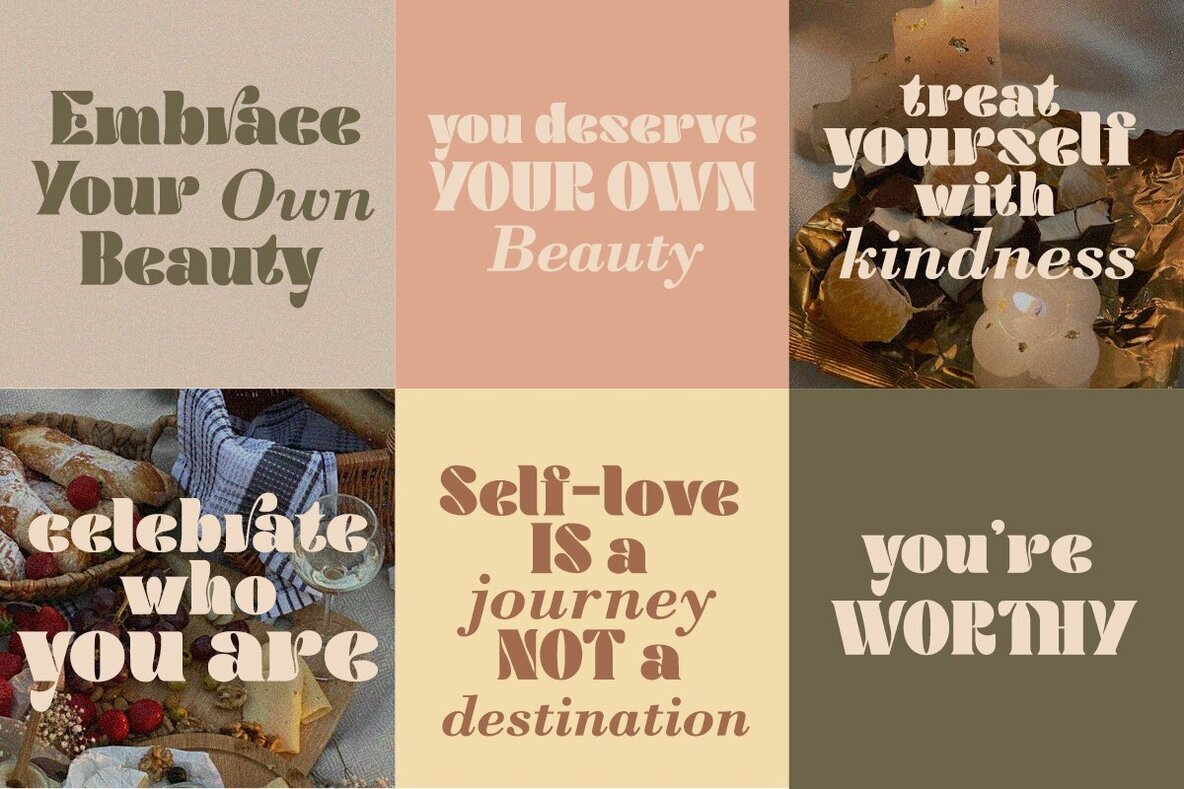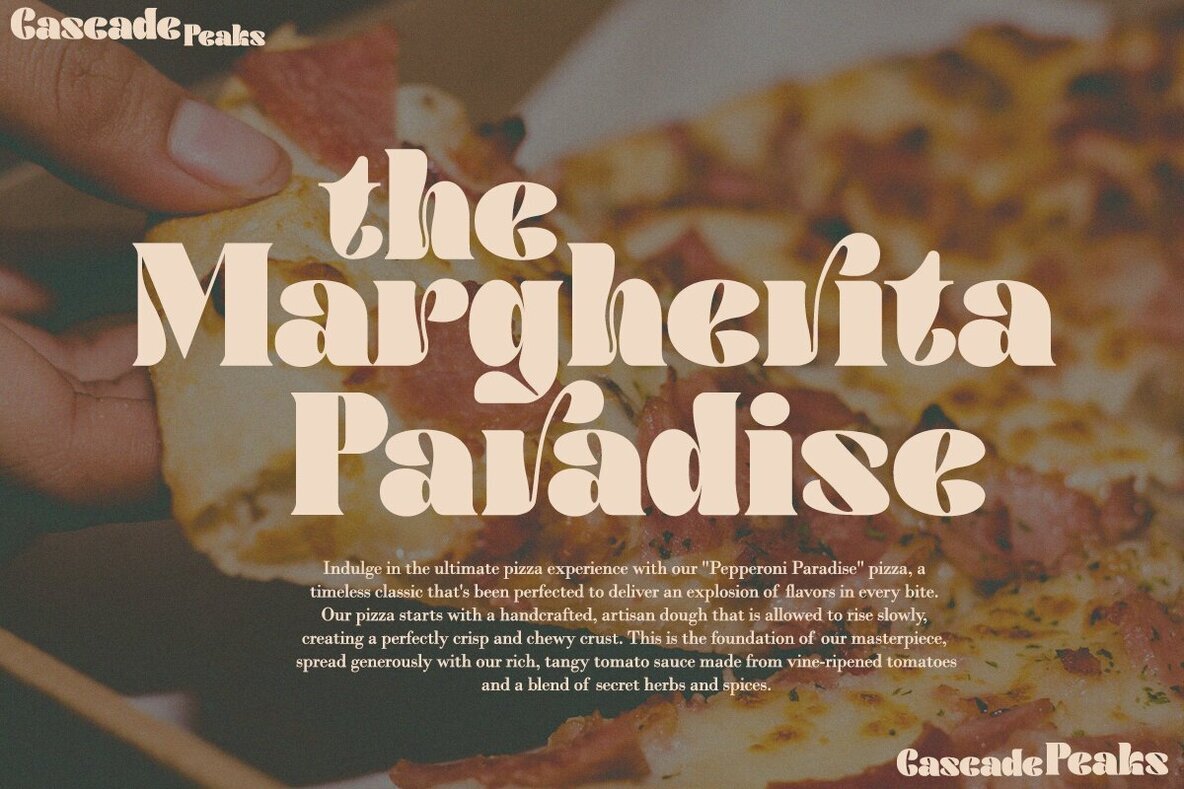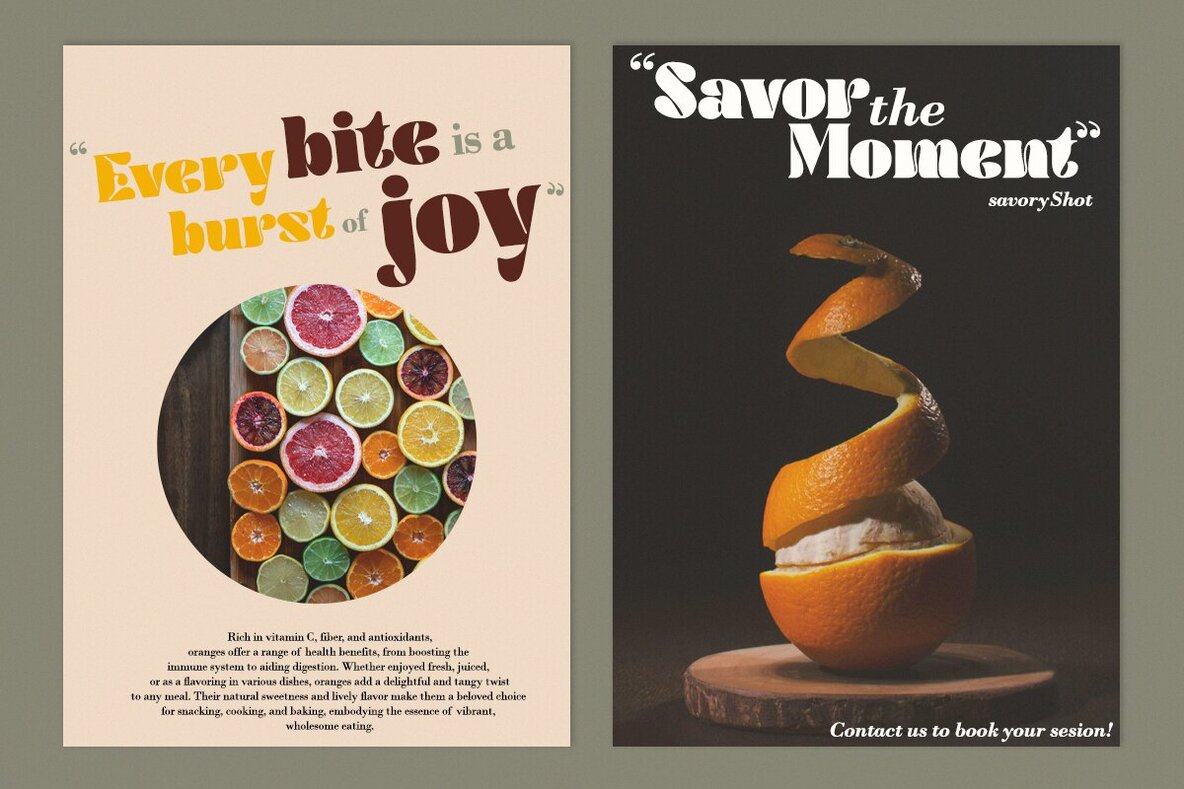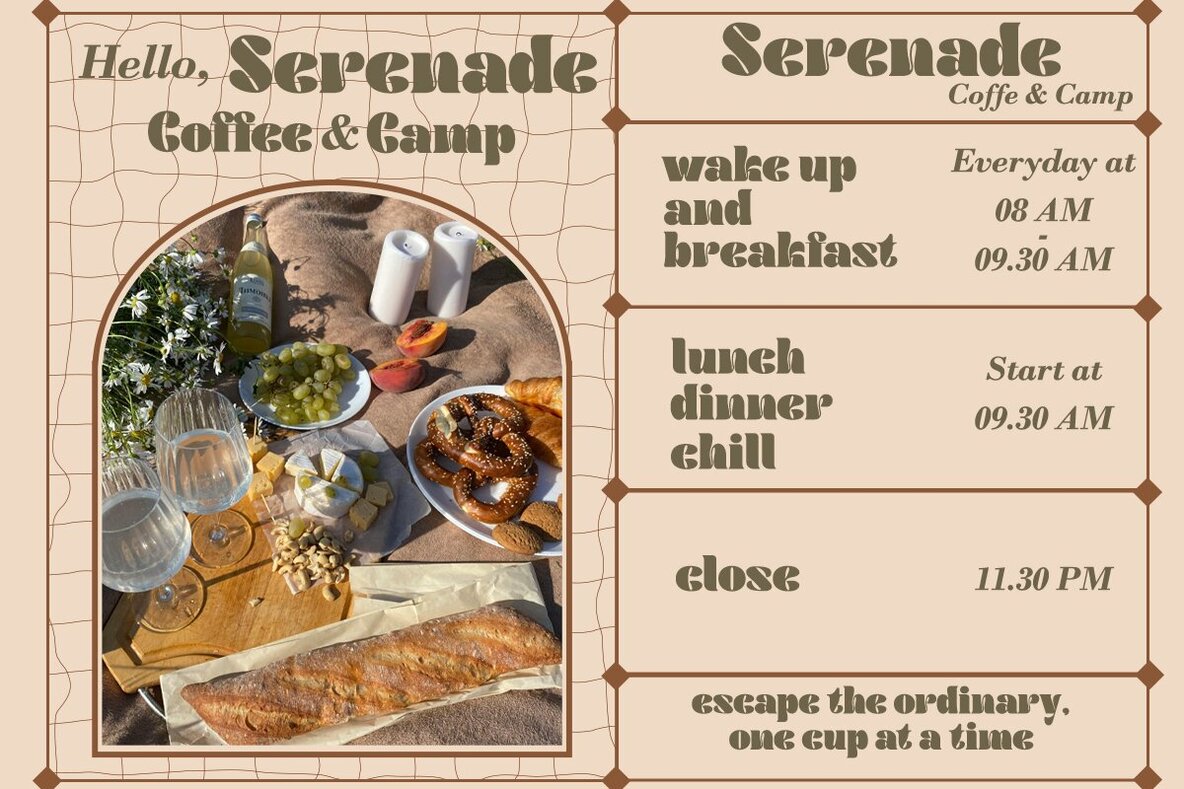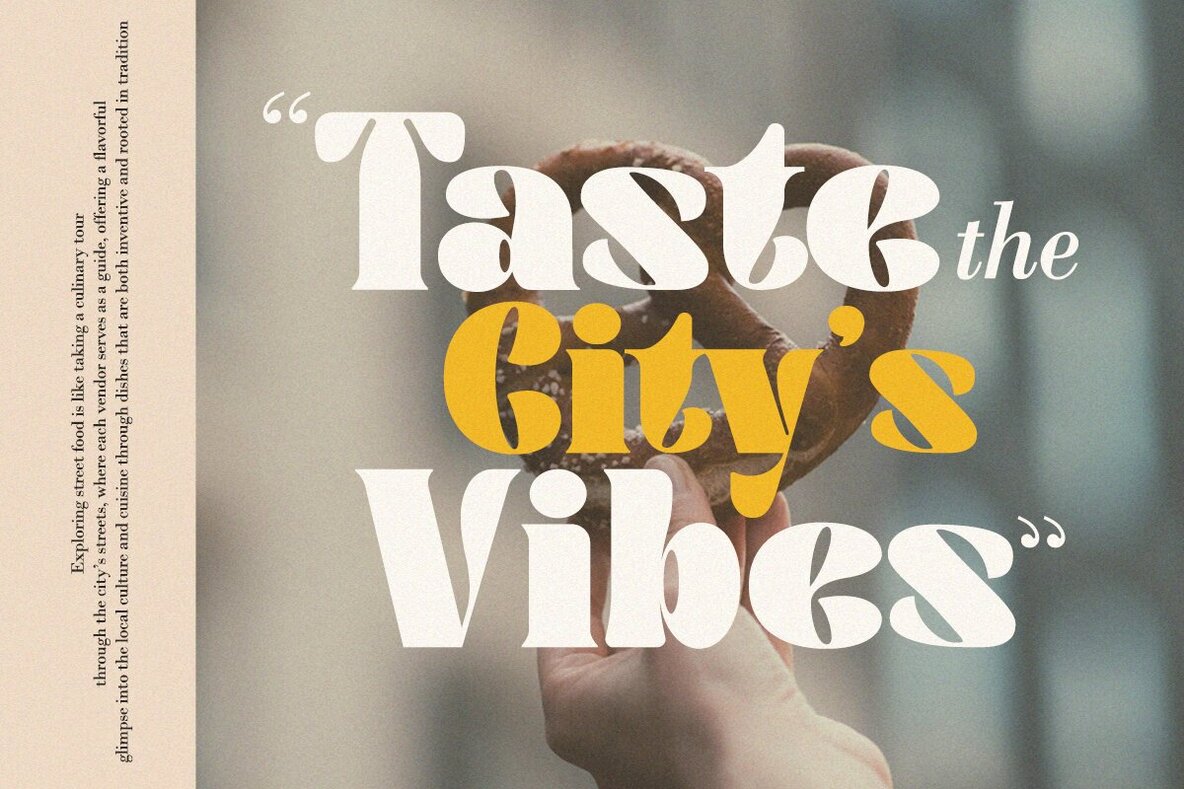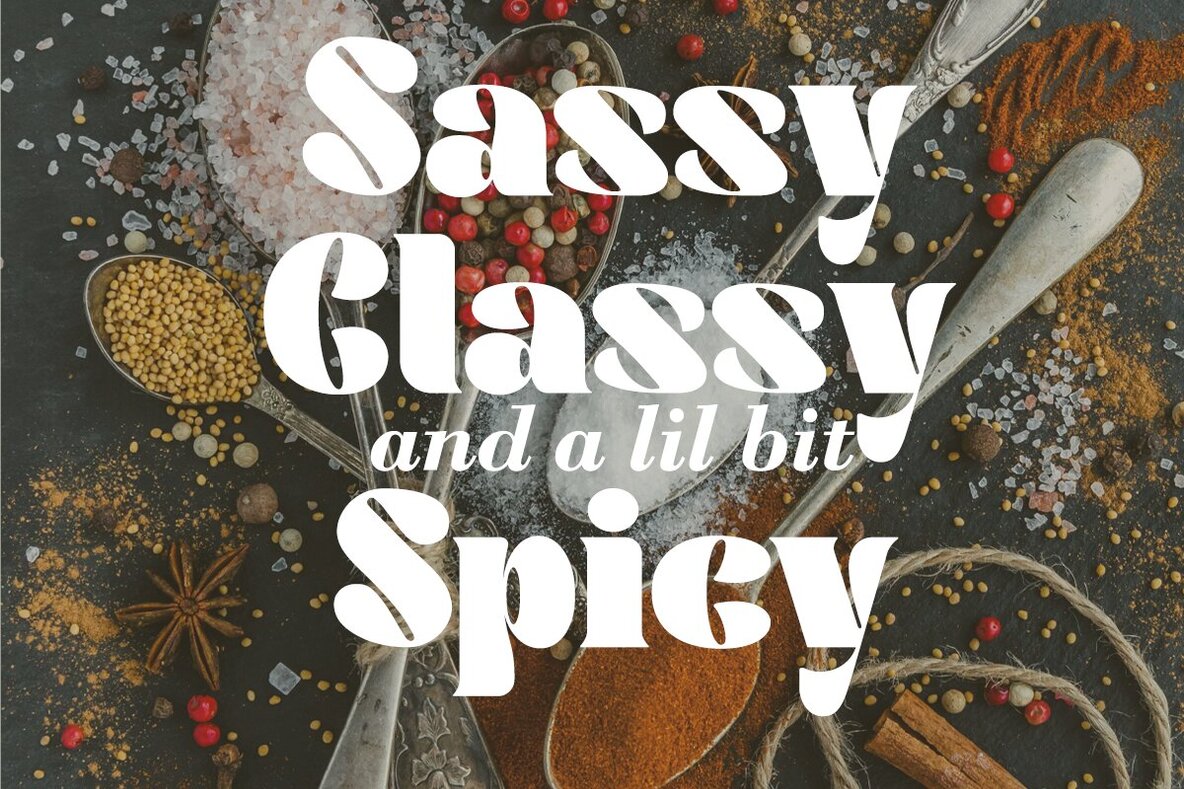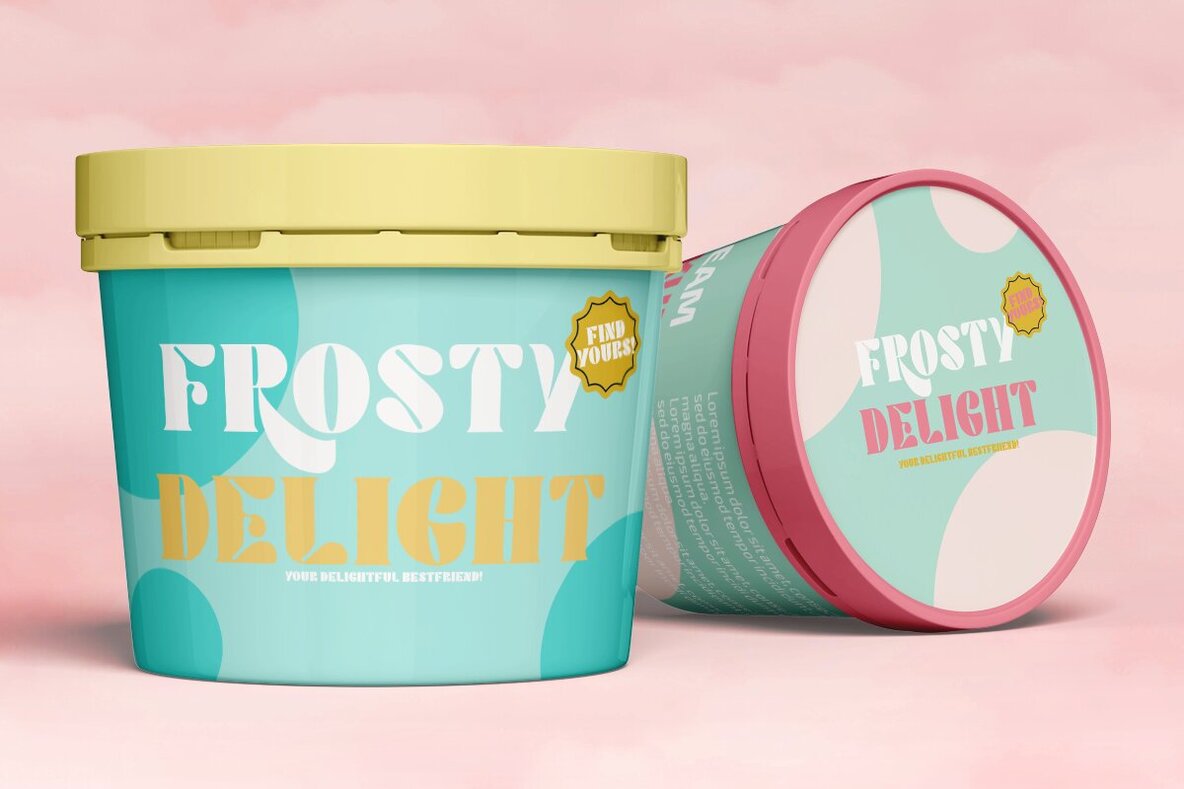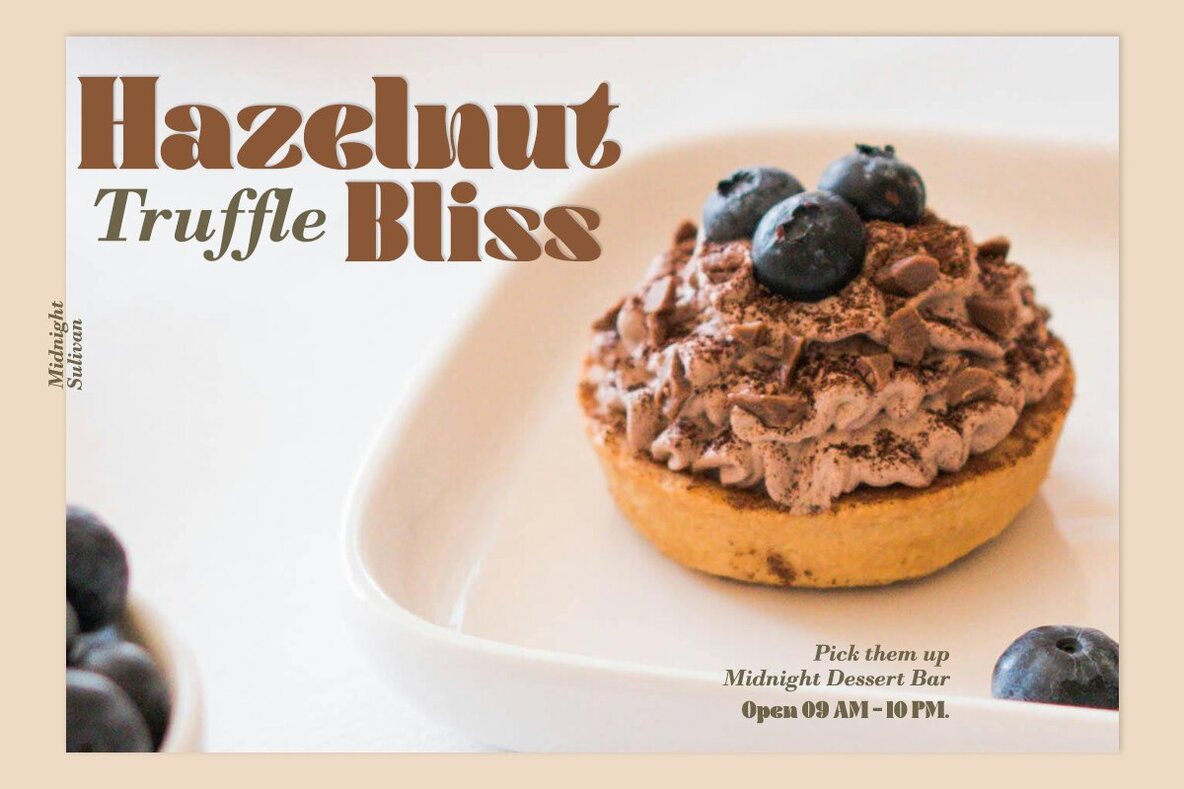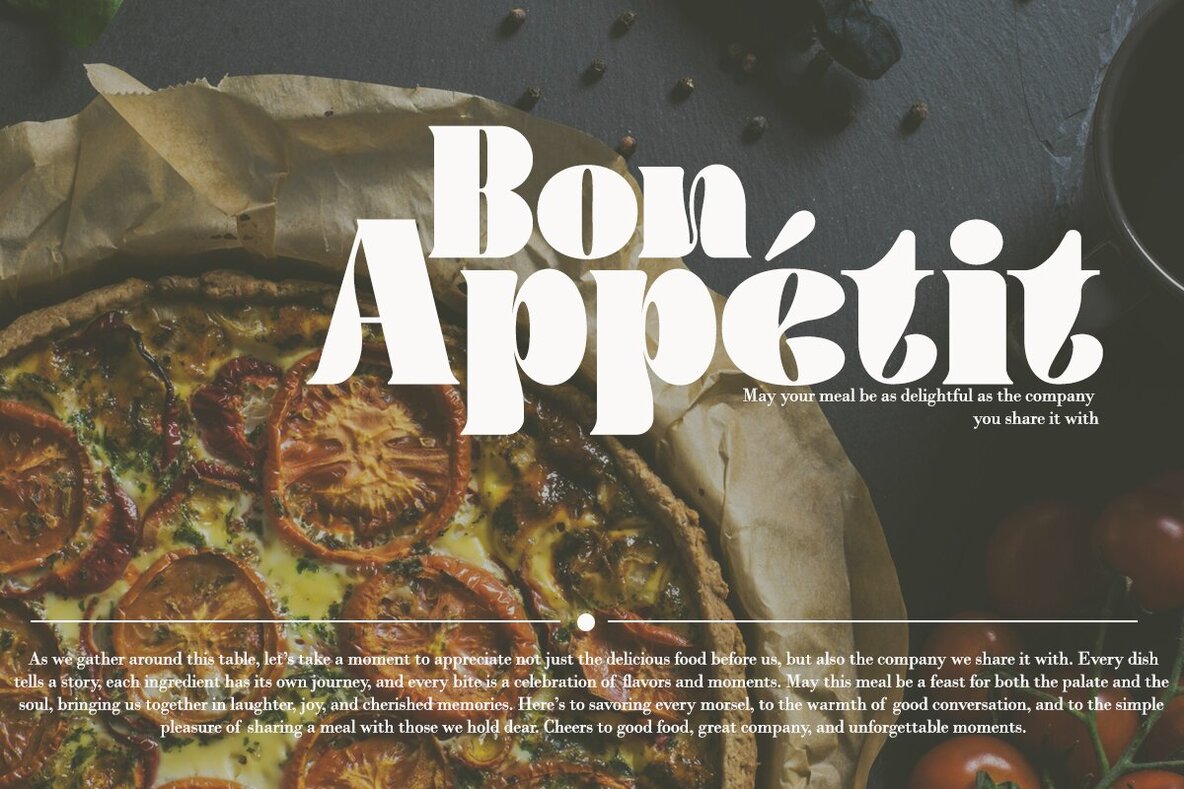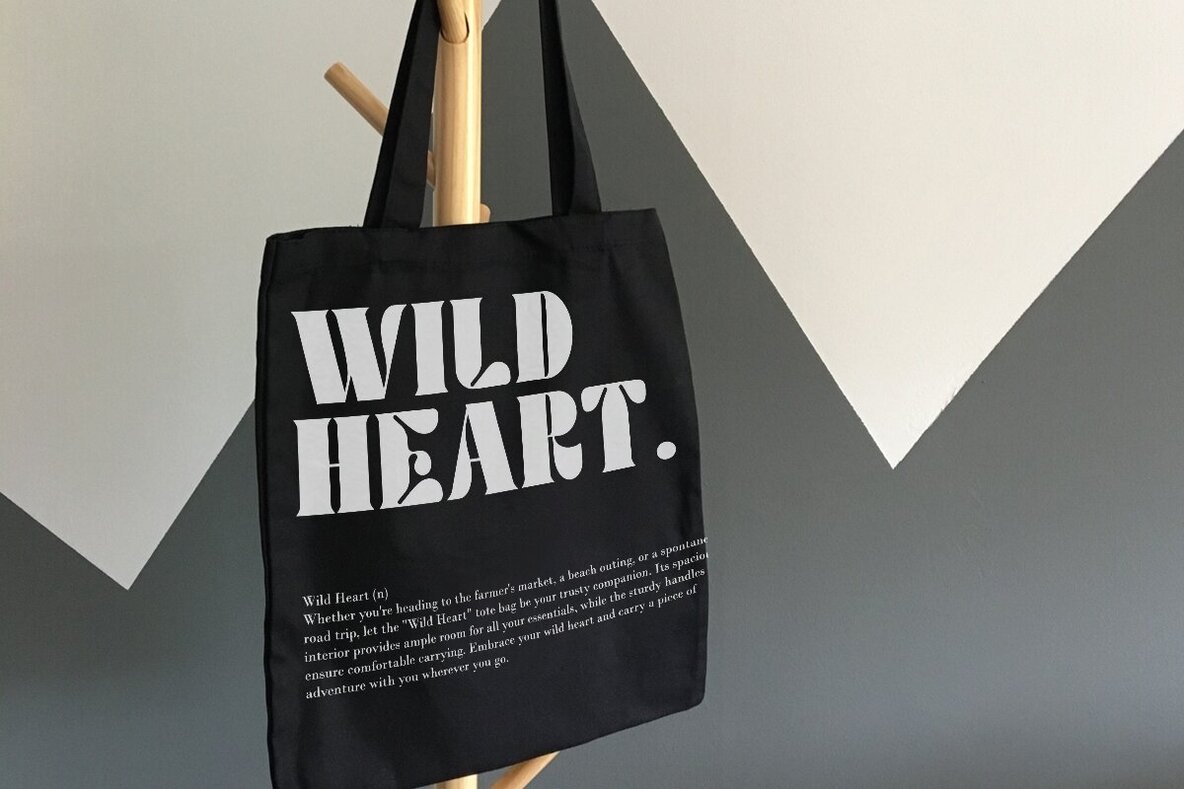
Chups Gelato Font
Chups Gelato
Chups Gelato is a vibrant, Pop Fun serif font that combines a modern and classic aesthetic with clear, bold characters. This versatile typeface stands out in branding design, logos, greeting cards, and packaging titles. Its unique letterforms convey a sense of fun and creativity, making it ideal for eye-catching designs.